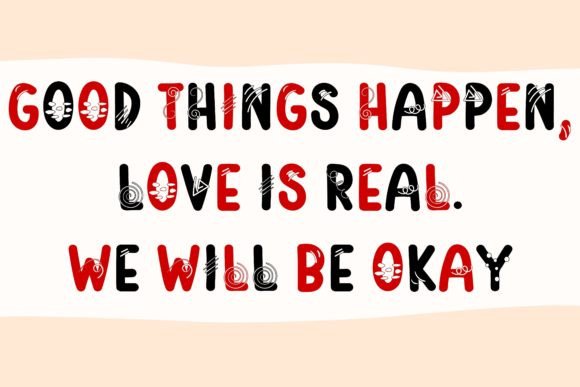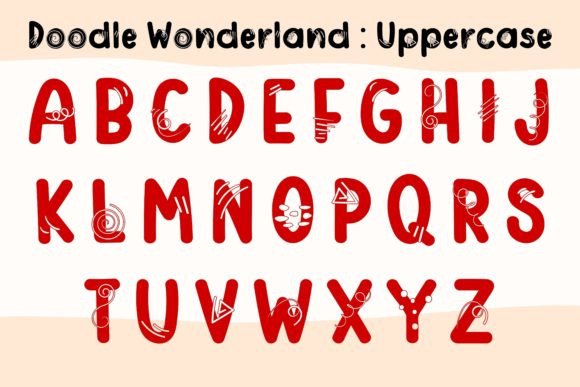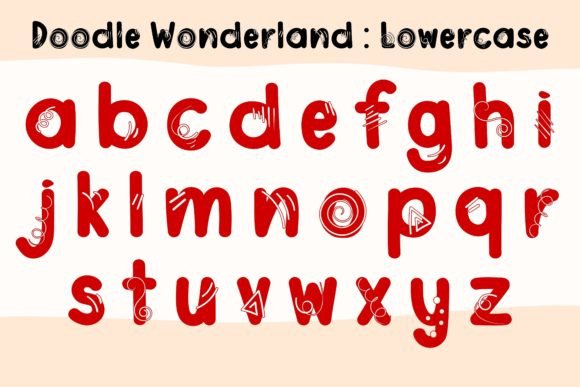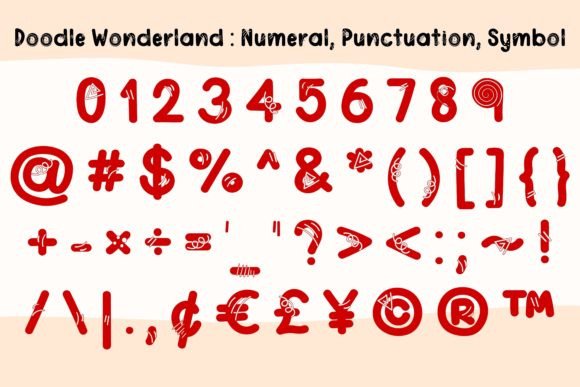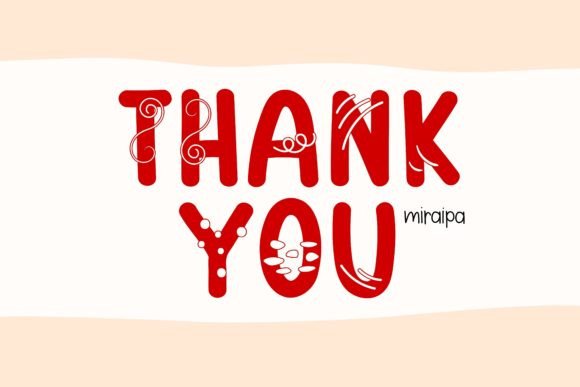
Introduction to Doodle Wonderland Font
Doodle Wonderland is a decorative font designed in a friendly and playful style.
Key Features of Doodle Wonderland Font